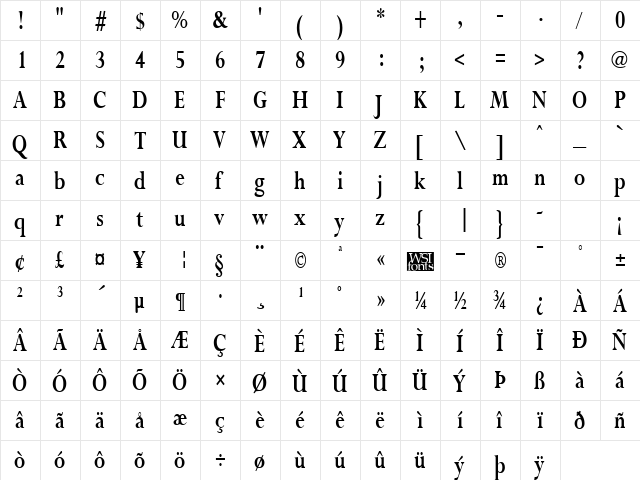
PurloinCondensed Bold
Design Context for PurloinCondensed Typeface
PurloinCondensed takes a measured approach to typography — its balanced proportions and neutral character make it a reliable workhorse for both digital and print work. Its bold stroke weight gives it real presence on the page. The condensed width makes it efficient for tight spaces without sacrificing legibility.